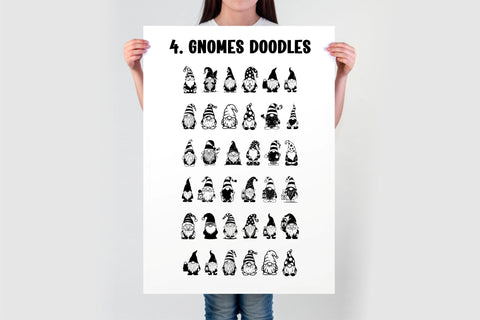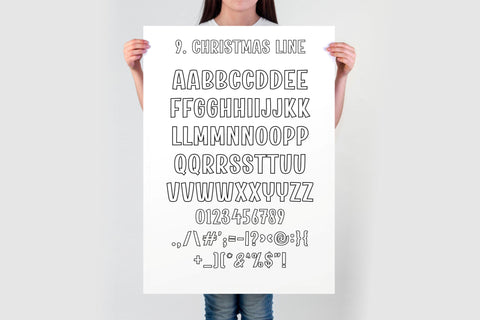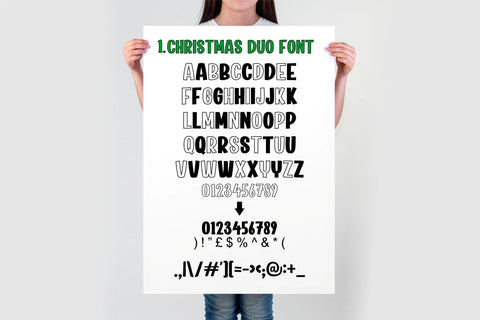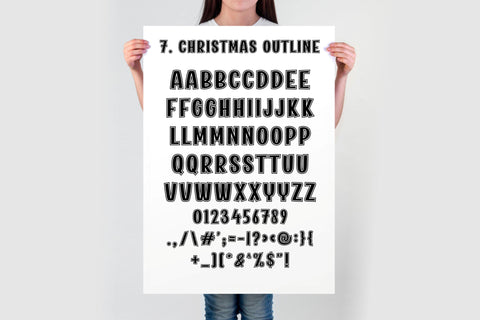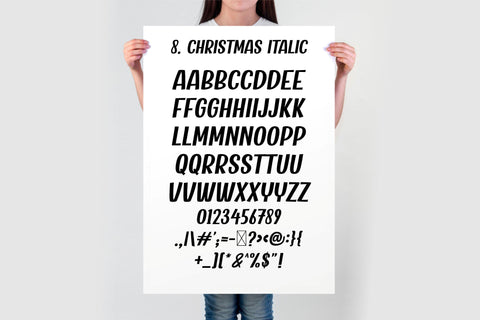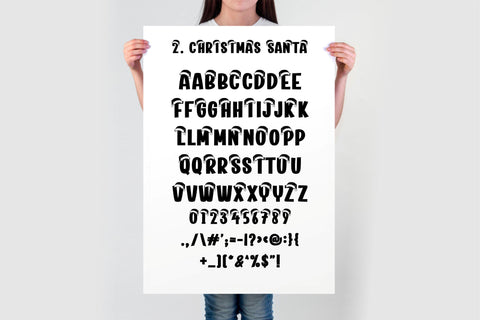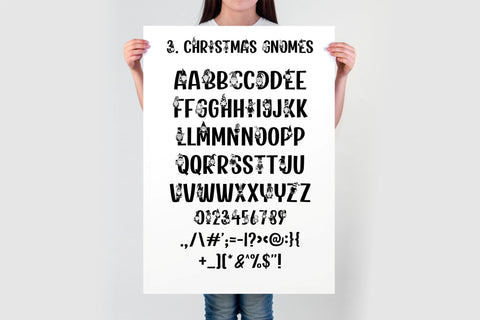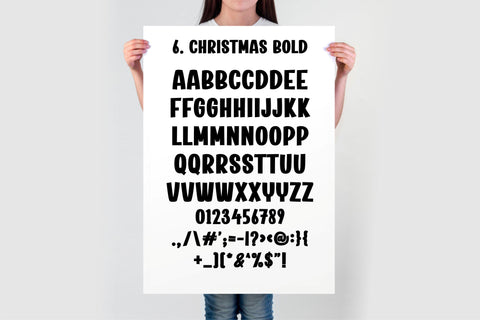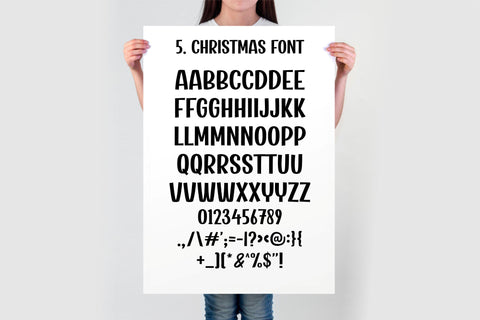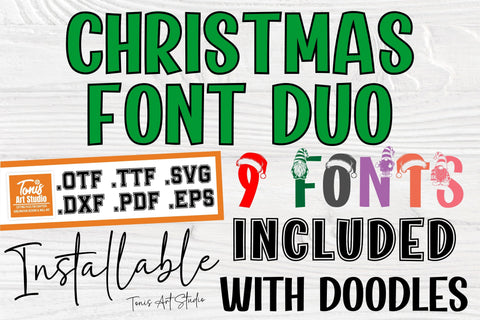
Christmas Font SVG Bundle | Christmas Duo | 9 Festive Styles
Bring holiday cheer to your creative projects with this comprehensive Christmas Font Bundle! Featuring 9 unique styles—including bold, outline, italic, gnome-themed, Santa hat, and doodles—this bundle is perfect for creating festive designs for cards, invitations, decorations, apparel, and more. Each font comes in installable OTF and TTF formats, along with SVG, PDF, DXF, and EPS cut files for maximum versatility. Whether you're crafting with Cricut, Silhouette, or designing digitally, this bundle has everything you need to spread Christmas joy in your work!
Included Fonts:
1. Christmas Duo
2. Christmas Bold
3. Christmas Regular
4. Christmas Italic
5. Christmas Line
6. Christmas Outline
7. Christmas Gnomes
8. Christmas Santa Hat
9. Gnomes Doodles